There is something intriguing about dark-themed design. We don’t always need images of monsters, blood, haunted houses, or creepy creature illustrations to make a visual feel unsettling. Sometimes, simply changing the shape of the letters can make an ordinary word suddenly feel a whole lot more mysterious.
Typography has the ability to build a vibe even before someone reads the message inside. Sharply shaped letters can feel aggressive, blackletter brings a gothic, classic feel, while an unusual display typeface can make a title feel like it belongs to a world slightly detached from reality.
That’s why picking a font for a spooky design isn’t always about hunting down the scariest-looking typeface. What’s more interesting is finding letterforms that match the exact vibe you want to build. Does the design need to feel genuinely terrifying? Mysterious? Dark yet playful? Gothic? Or maybe like an old-school horror movie poster?
Your choice of typography will pretty much decide that.
Since not every design needs the exact same kind of darkness, here are several typefaces to kick off your exploration into the creepier, more mysterious, and slightly unsettling side of visuals.
Not every dark-themed design has to look like a horror movie poster. Broken Habit takes a more rebellious, urban direction through its funky, street-oriented display character.
A typeface like this is awesome when you want a raw, experimental, and less-than-serious vibe. It works great for posters, artwork, merch, campaign graphics, or any design that needs a punchier visual energy without falling into overly literal horror aesthetics.
Broken Habit also proves that a spooky vibe doesn’t always have to come from creepy letterforms. Sometimes that atmosphere stems from a typeface’s visual attitude something that feels a little wild, unpolished, and packed with personality.
If you’re after a more direct horror vibe, Creepy Mansion delivers a name and character that feels like a place you definitely shouldn’t visit alone after midnight.
Typefaces with this approach are perfect for visuals needing a mysterious, unsettling atmosphere. Picture horror story titles, fiction movie posters, novel covers, dark-themed invitations, or artwork trying to channel an old tale about a house hiding a secret.
The strength of a horror font like this isn’t just readability, but its ability to make a title feel like a real piece of the story.
There’s a kind of typography that doesn’t need to look aggressive to feel dark. Dark Midnight fits right into a more atmospheric exploration ideal when your design needs a night-time, mysterious, and slightly unsettling tone without leaning on overly explicit horror visuals.
This subtle approach works wonders for designs aiming to build a mood first before serving up the scary factor. Typography becomes a core part of the atmosphere rather than just decorative fluff.
It’s a solid pick when your design leans closer to mystery than pure horror.
If your design calls for something way more intense, Death Mist dials up the aggression. Its character draws inspiration from Japanese design with sharp letterforms and a gritty atmosphere, packing a much harder punch than playful spooky typefaces. This one is tailored for projects like horror movie titles, heavy metal album covers, game logos, and artwork demanding high visual drama.
What’s cool about Death Mist is how the letter shapes themselves carry so much energy. You don’t need to pile on extra decoration to make a title feel heavy. The typography itself takes center stage.
Dream Specter sits in more theatrical territory. Built with a horror feel and a unique display character, it fits seamlessly across various needs requiring a horror, thriller, or spooky vibe. Its letterforms are flexible enough for logos, labels, editorials, covers, and advertising.
A typeface like this shines when you want to make a title the absolute centerpiece. It doesn’t just deliver words; it helps build a whole visual world around them.
Imagine fictional movie titles, supernatural novel covers, night event posters, or mysterious fantasy artwork. In those contexts, typography works almost like an illustration.
Fright Maiden takes us down a more character-driven horror path. Its name and execution give you plenty of room to explore creepy, dramatic, and slightly theatrical visuals.
Fonts with this much personality are great when a design needs to look dark while showing off a distinct identity. That matters because horror doesn’t always have to be brutal. Some horror feels elegant, some feels mysterious, some theatrical, and some reads like a straight-up supernatural tale.
Fright Maiden is a compelling choice when you want typography to play a massive role in shaping your artwork’s identity.
If there’s one typographic style with an undeniable link to the dark and gothic world, it’s blackletter.
Grimvale pushes that approach straight into horror territory with tall gothic forms, thorn-like details, dripping effects, and a distressed texture. The result feels like something pulled off an old horror poster, out of a dark alley, or from a story found somewhere you shouldn’t have opened.
This character packs a heavy punch for posters, gothic logos, horror games, album art, metal branding, or any design calling for an extreme visual presence.
That said, blackletter demands a careful eye for context. Because the shapes are intricate, it’s usually most effective as display typography rather than long body text. Let the letterforms make the statement.
Not everything spooky has to feel genuinely terrifying.
Haunted Gallery lands on the fun, playful side of the horror spectrum. It’s an awesome direction when a design wants to play with creepy themes while keeping the overall energy light and approachable.
This approach fits spooky-themed posters, packaging, merch, invitations, kids’ Halloween artwork, or visuals that want to drop horror elements without totally intimidating the audience.
That contrast between creepy forms and a playful personality can actually lead to much more memorable visuals.
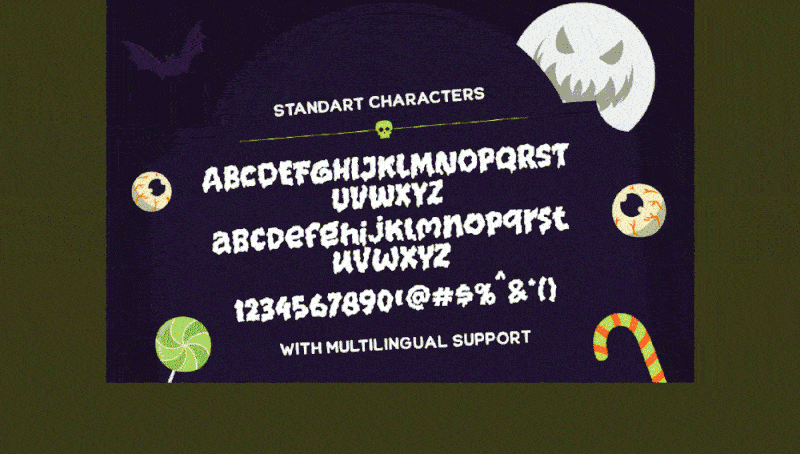
Moon Raze is neat because it walks the line right between horror and fun. It sports bold, unusual shapes with a character built for horror, thrillers, and spooky themes, all while hanging onto a playful edge. Variations like Outline, Inside, and Extrude open up extra possibilities for building dimensional display treatments.
That versatility makes Moon Raze super flexible for designs that don’t want to get too dark. It easily acts as the main title on posters, logos, invitations, labels, editorial art, or campaign visuals that need typography with punchy personality.
If your design needs something spooky without being overly serious, this vibe is a great way to go.
Finally, there’s String Hopper a bold, vintage serif display font designed for horror, thrillers, spooky, and fun themes. Loaded with alternates and ligatures, it’s even more fun to tweak for display and title treatments.
What sets this approach apart is its retro flavor. Instead of dropping us straight into modern horror, String Hopper feels like a title from an old storybook, a retro poster, or a book cover discovered on a dusty shelf.
That makes it a treat for designs wanting to blend a spooky atmosphere with a nostalgic visual language.
When looking for fonts for a spooky design, it’s super easy to get stuck asking, “Which font is the scariest?” Honestly, that question might be a bit too simple.
The right font isn’t always the most extreme one. What matters way more is whether the typeface’s character aligns with the atmosphere you’re trying to build.
If you want something aggressive, sharp and distressed shapes work wonders. If you want gothic, blackletter brings a rich visual history. If you want mysterious, an unusual display shape might be all it takes. And if you want spooky yet fun, a playful typeface can deliver a far more engaging twist.
NEXT READING
10 Branding fonts that feel like they have a story, not just look pretty
Variable Fonts vs Traditional Font Families: Which is More Efficient for Website Performance?
Typography also pairs up with other elements to completely shift its perception. Color, texture, imagery, composition, and even animation can make the exact same typeface feel totally different.
A font that looks playful in bright colors can turn completely unsettling when dropped into a dark composition with tight, deliberate spacing. On the flip side, a super aggressive horror typeface can feel a lot lighter when paired with playful illustrations.
That’s why picking a font isn’t just about hunting down a shape that matches a theme.
It’s about finding a visual voice that fits the story.
And for dark, spooky designs, that voice can come from all over the place. It doesn’t always have to be blood, monsters, or horrifying shapes. Sometimes a vintage serif that feels like it belongs to an old tale is all you need. Sometimes a blackletter is enough to pull us into a gothic world. And sometimes, a slightly weird letterform is way more effective at creating discomfort than a font explicitly trying to look scary.
So, if you’re putting together a poster, cover, logo, merch, social media art, invitation, or campaign with a darker vibe, don’t just look for a “horror font.”
Look for the exact feeling you want to leave people with after they see your design.
Do you want them to feel curious? Uncomfortable? Entertained? Intimidated? Or like they just opened a door to a story that should’ve stayed shut?
Your answer will point you straight to the right typeface.
And if you want to expand your search beyond fonts explicitly tagged as horror or spooky, checking out various display typefaces is another great way to discover letterforms that deliver a dark vibe in totally unexpected ways.
The scariest font isn’t the one that looks the most horrifying. It’s the one that makes us wonder what story it’s hiding.